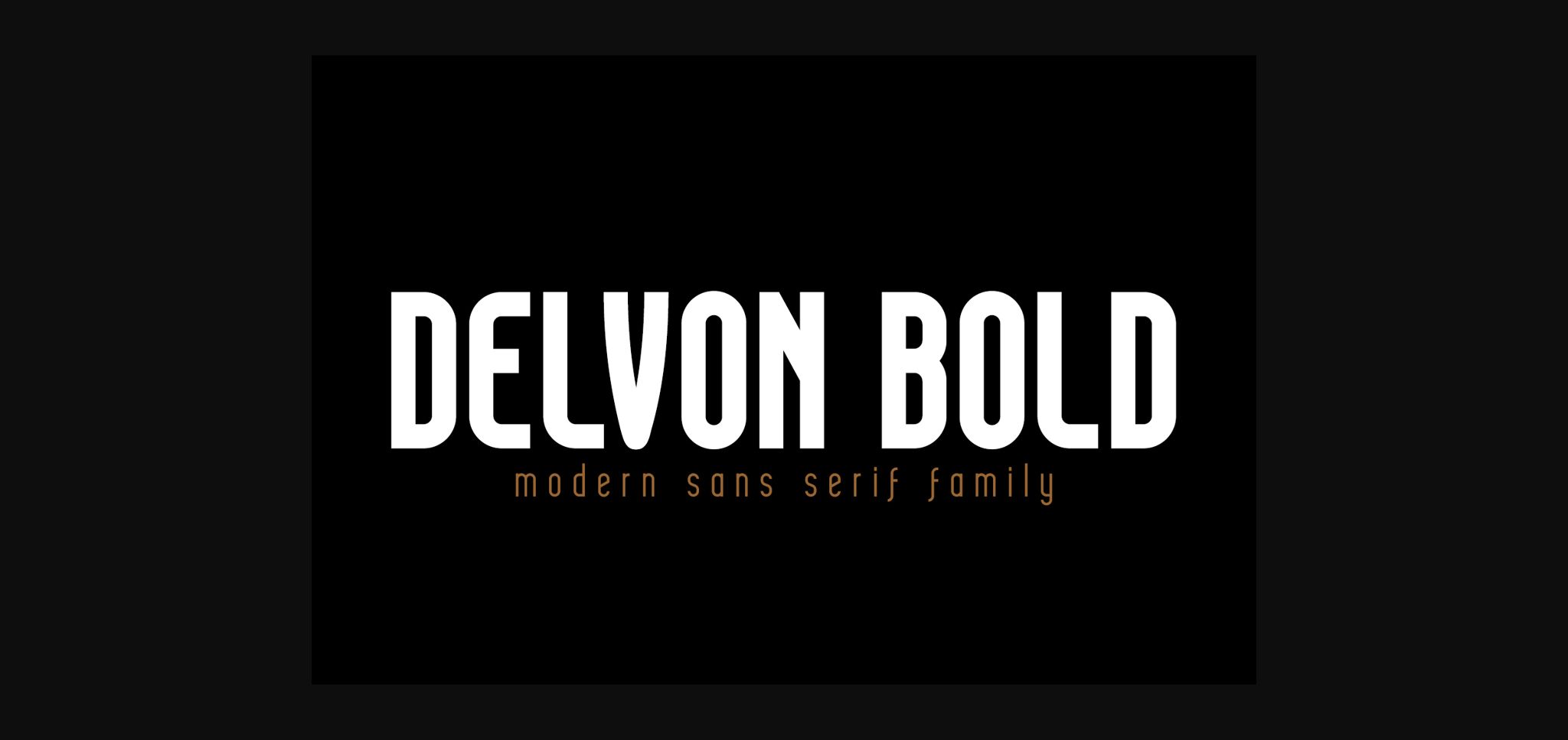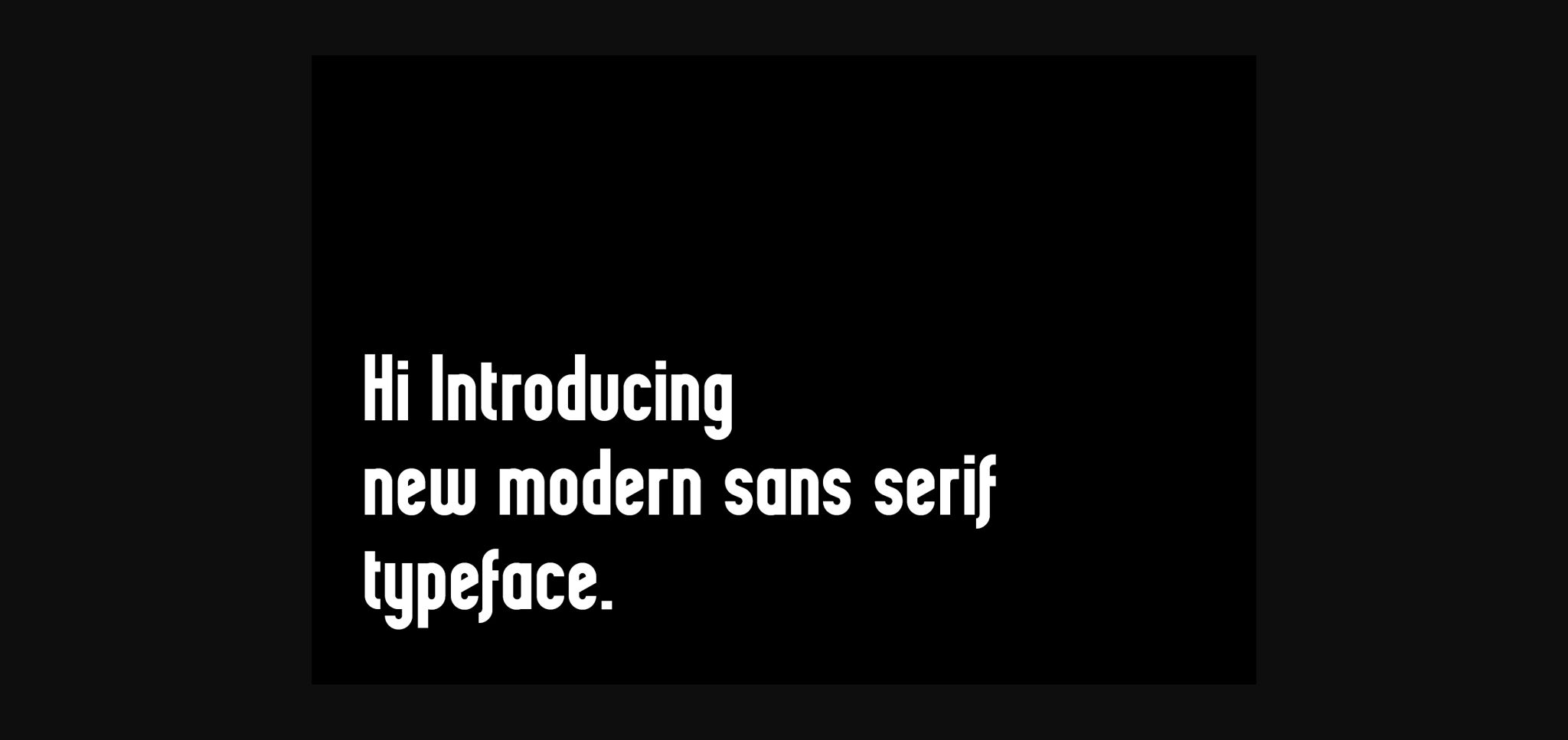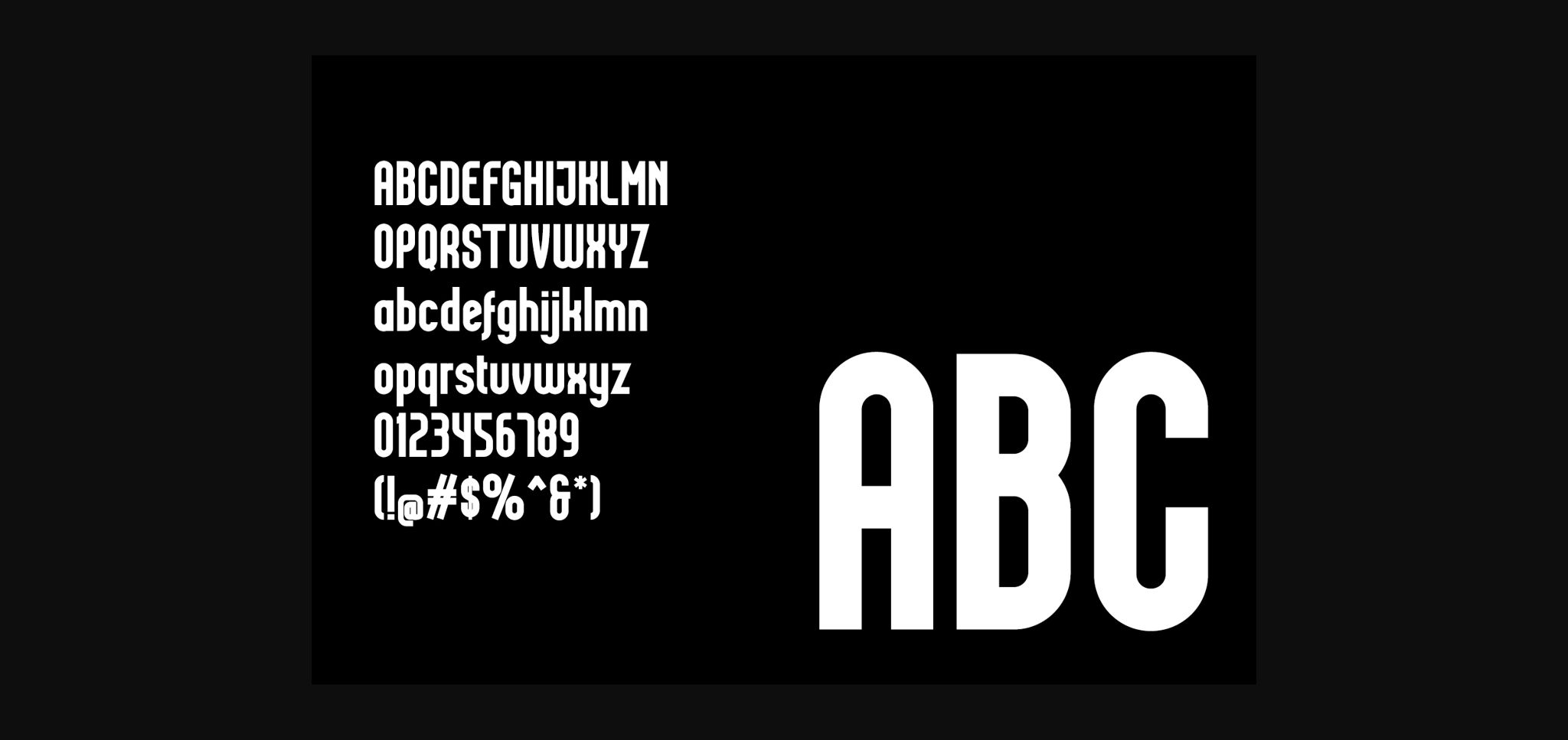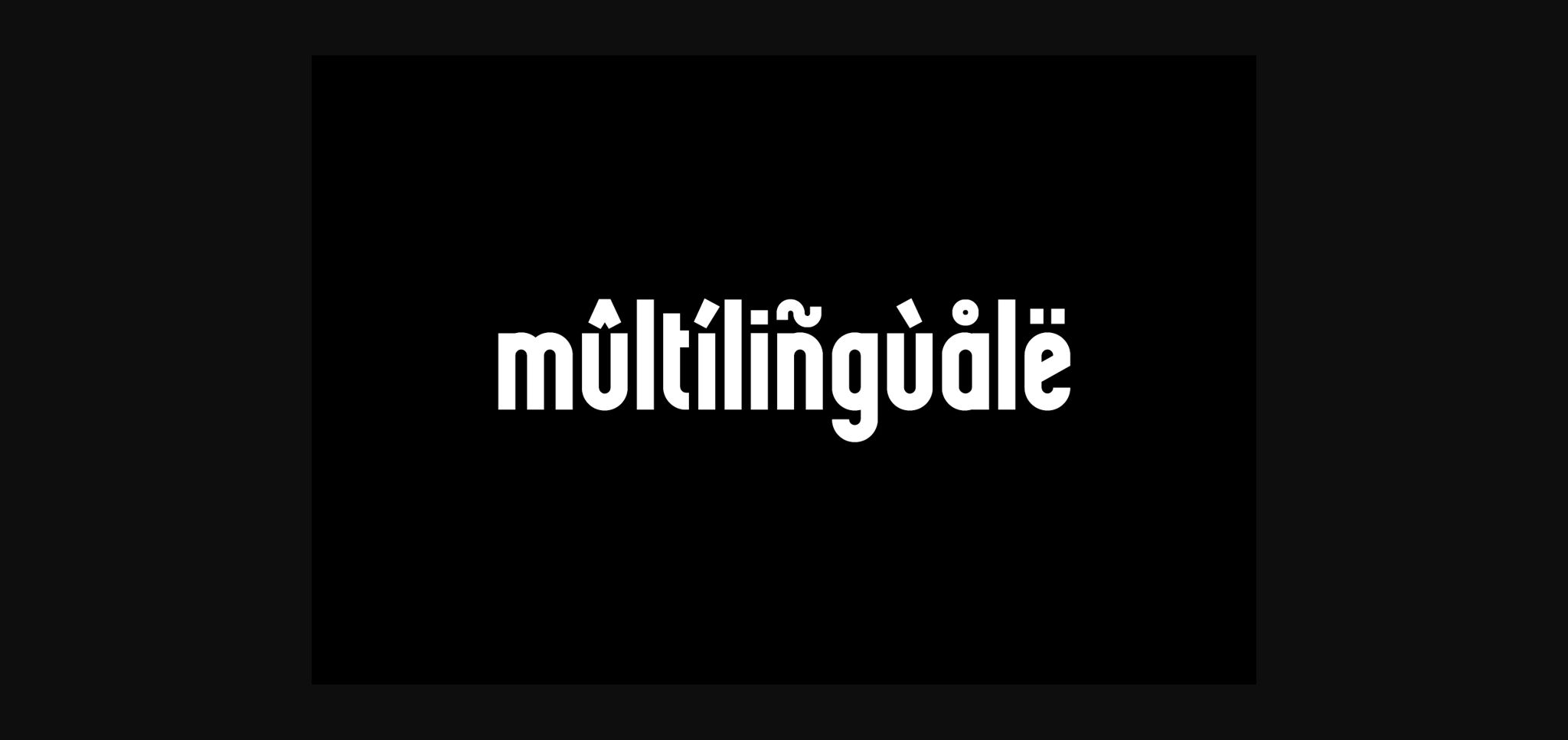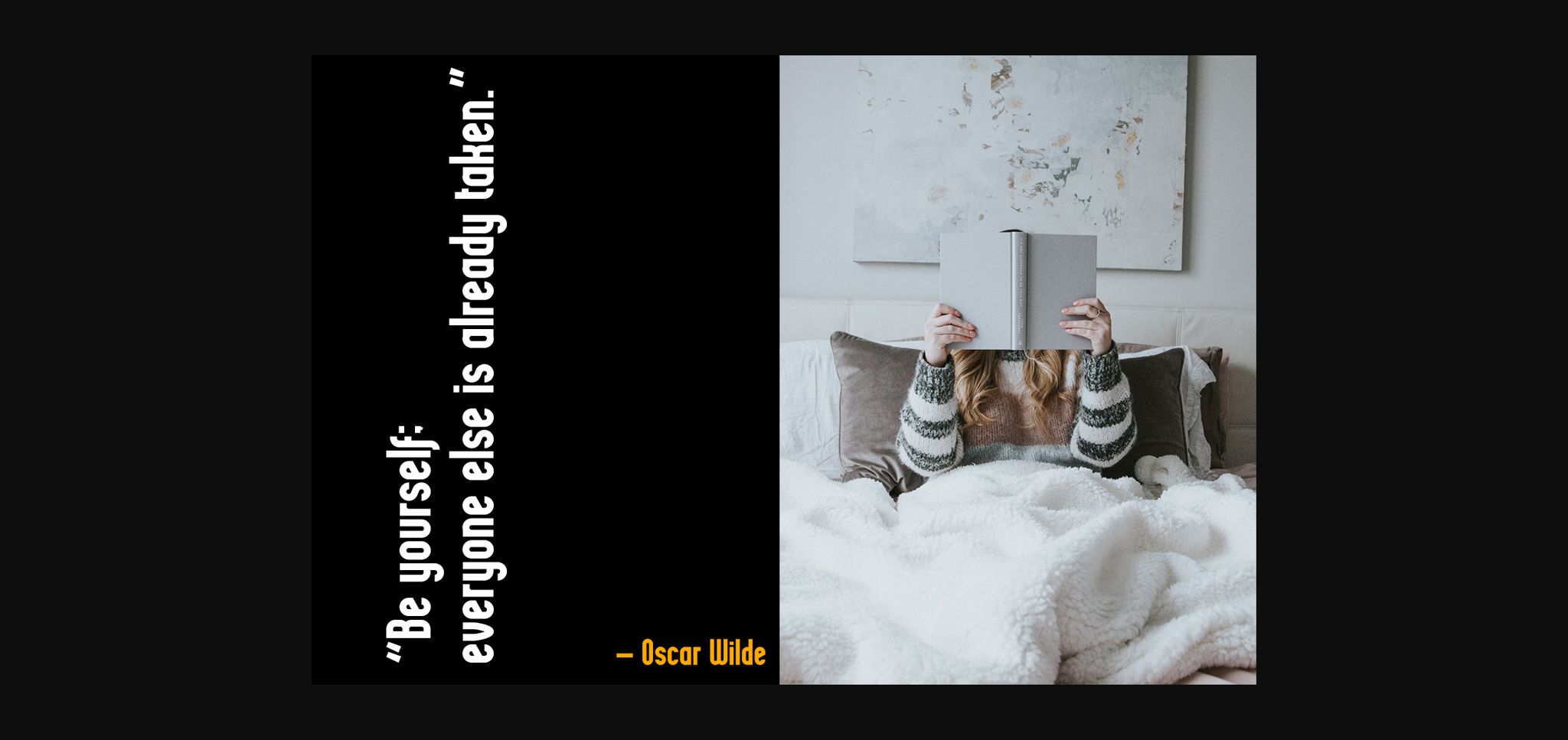
Delvon Bold Font
About Delvon Bold Font
Delvon Bold is a minimal and neat sans serif font. It can easily be matched to an incredibly large set of projects, so add it to your creative ideas and notice how it makes them stand out!